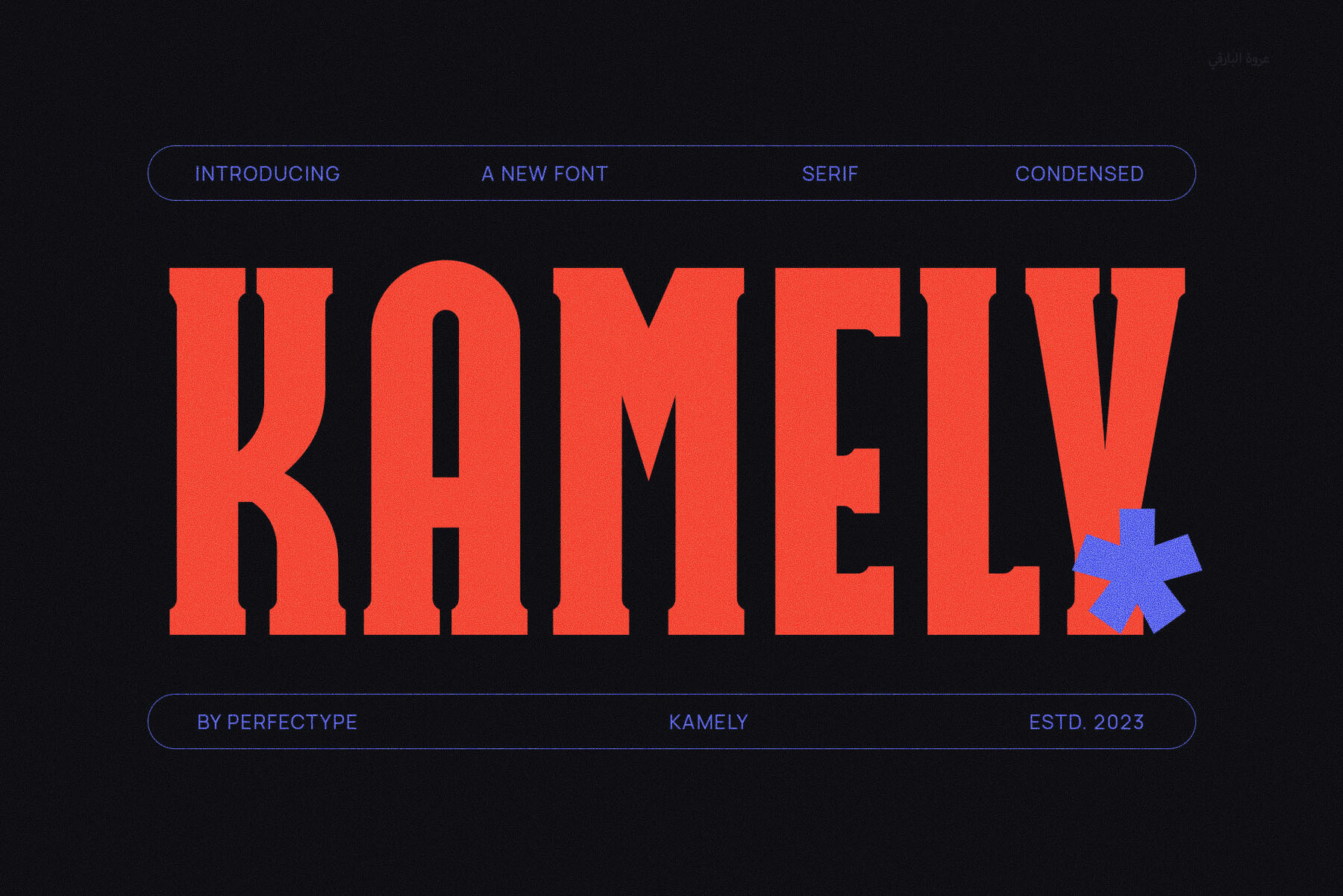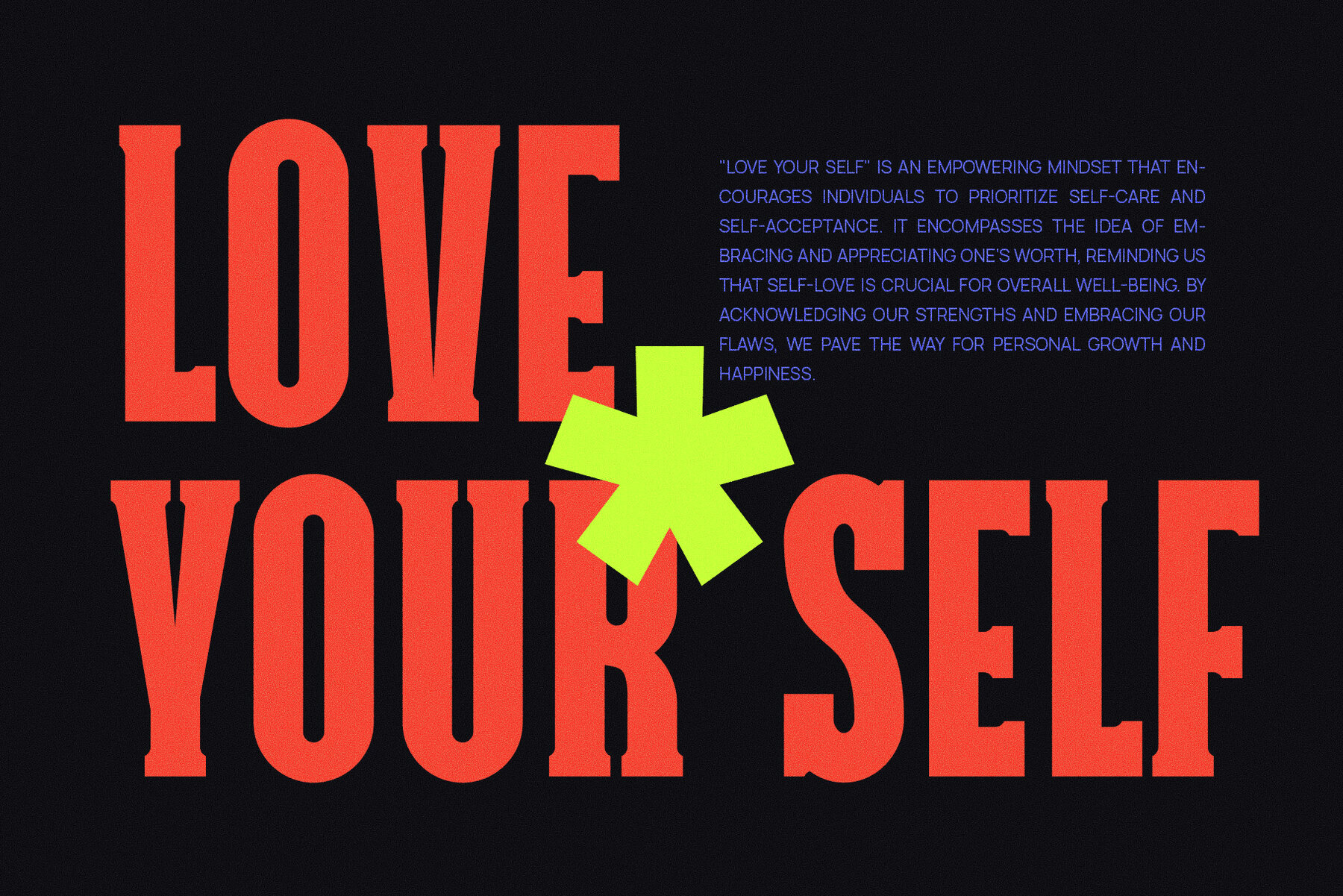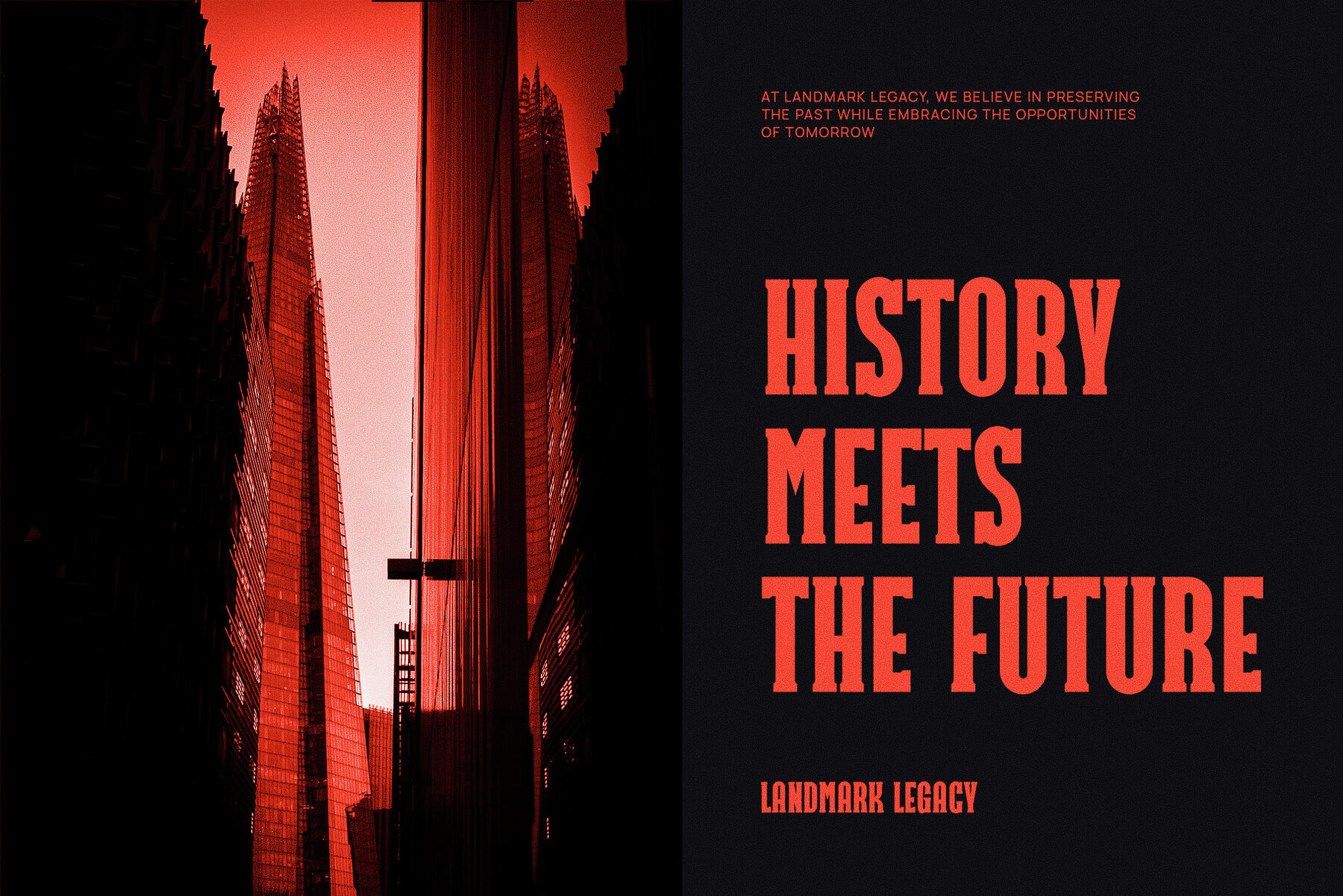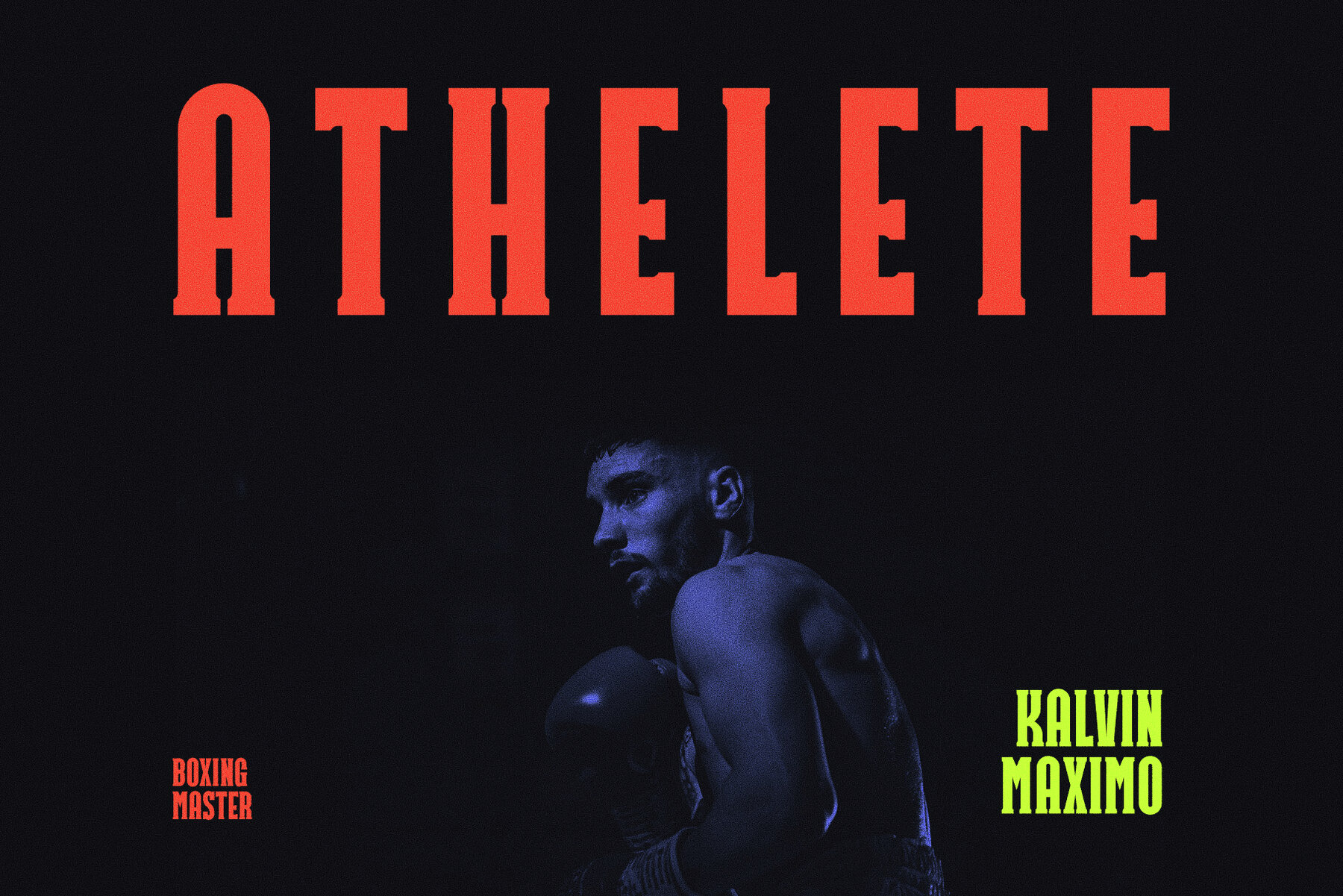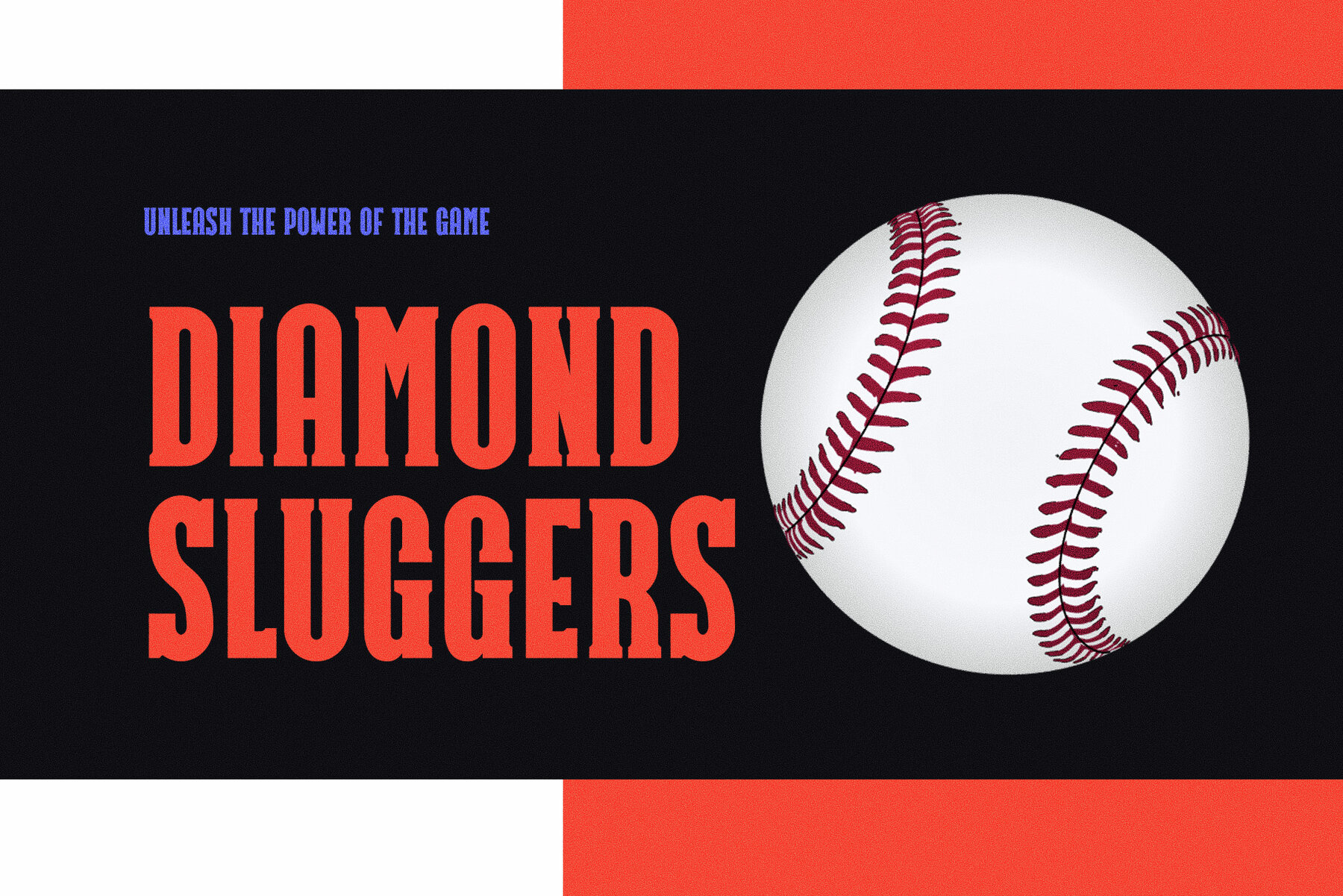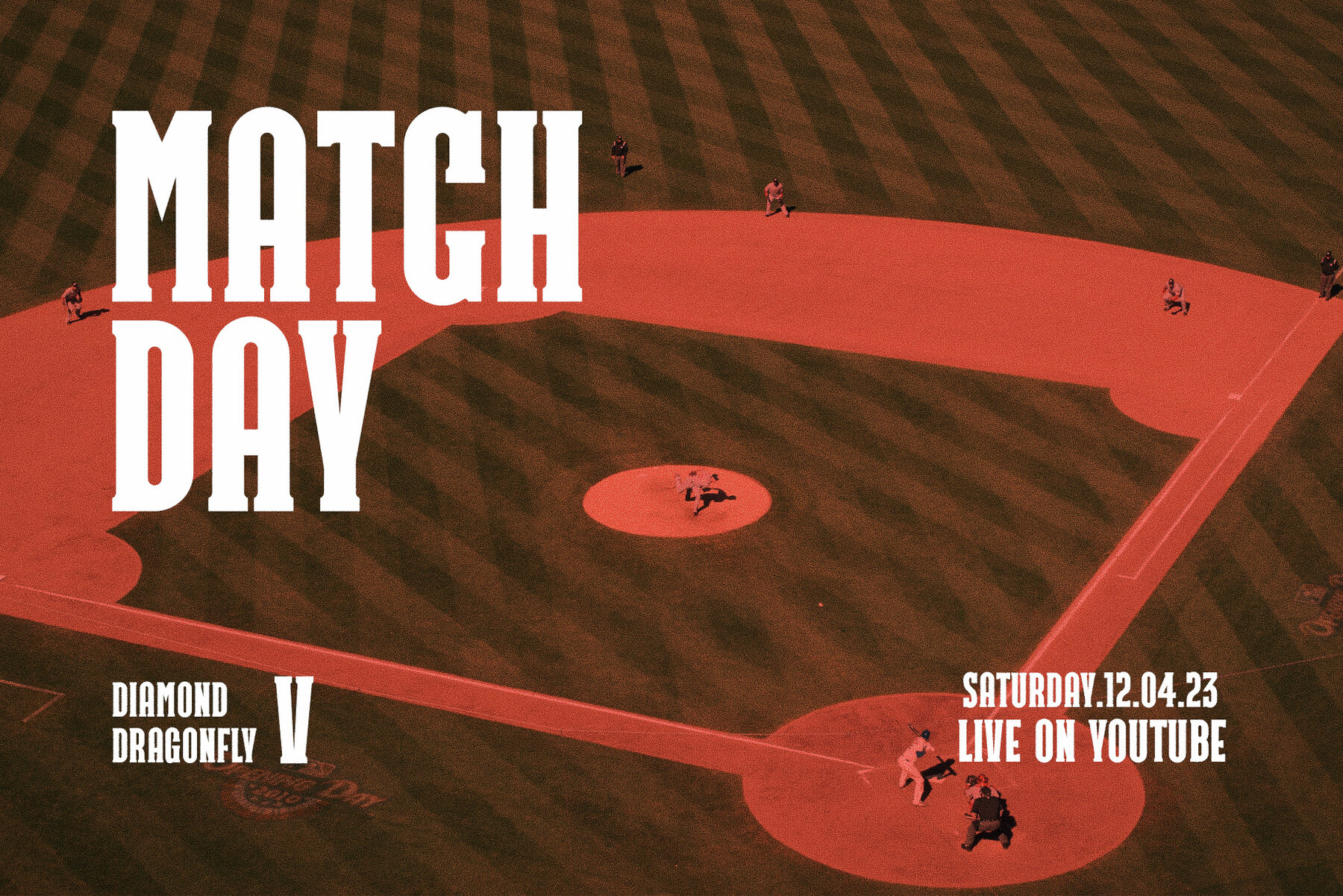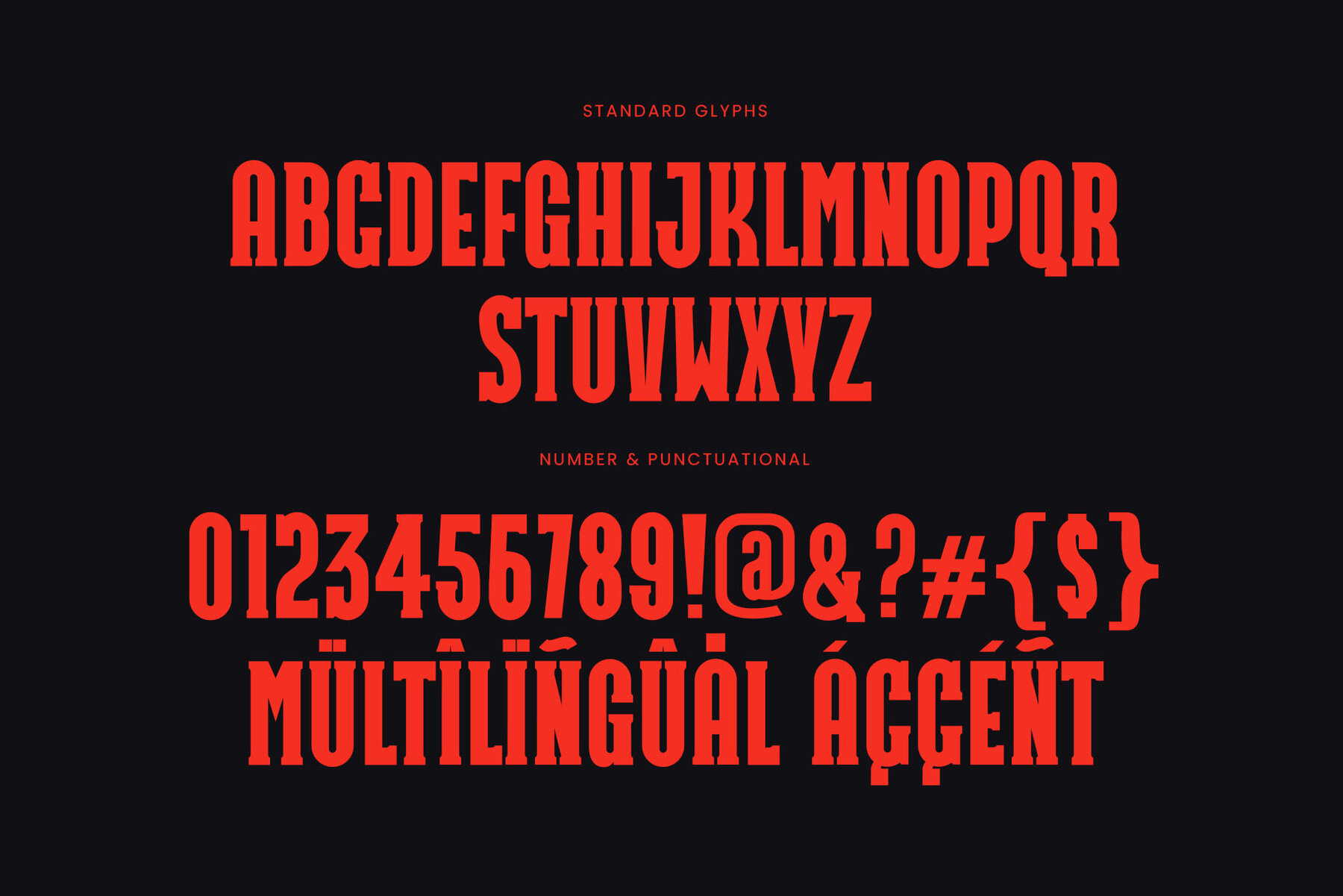
Kamely Font
Kamely Regular
Kamely is a classic vintage Slab Serif Font, ideal for diverse projects such as branding, logos, magazines, layouts, t-shirts, advertisements, Canva designs, music covers, and concert materials. It includes character standards, numbers, punctuation, and accented characters for Western European languages. Compatible with both PC and Mac, Kamely is best utilized with Adobe Illustrator or Adobe Photoshop for optimal results.